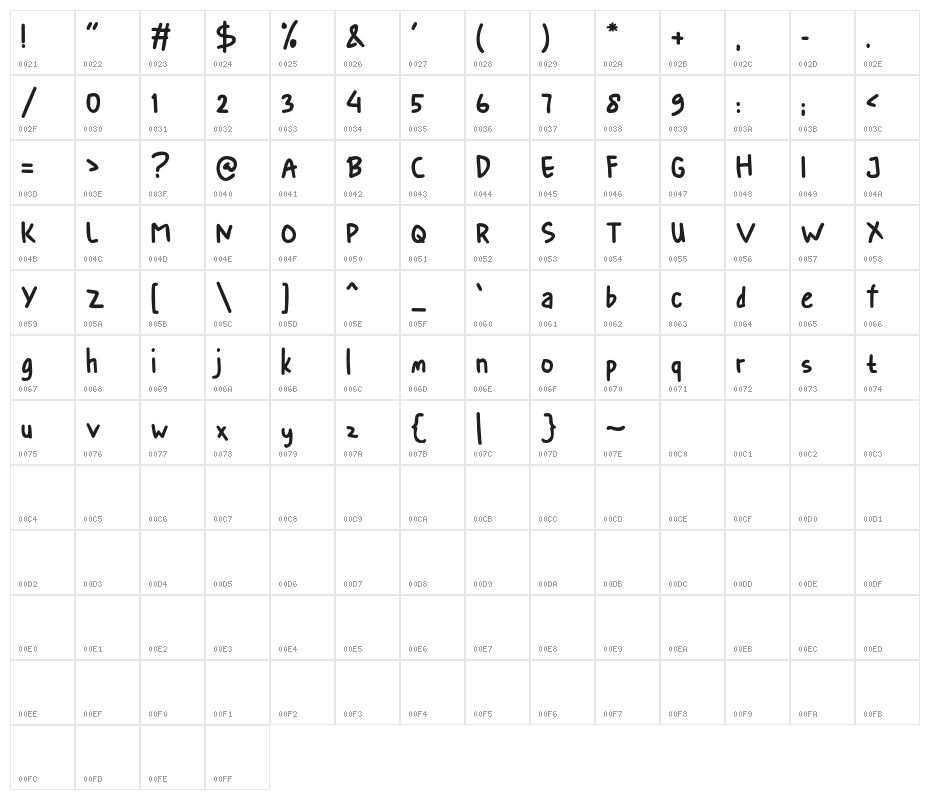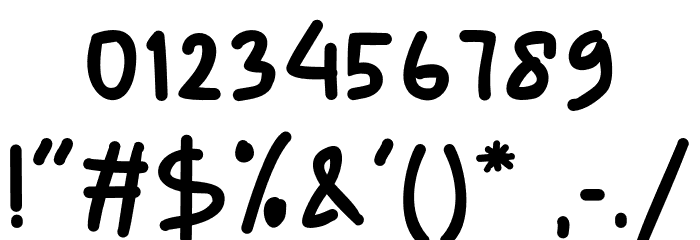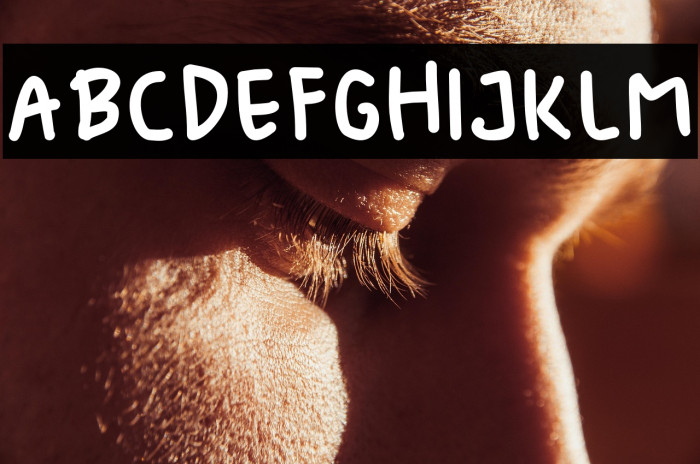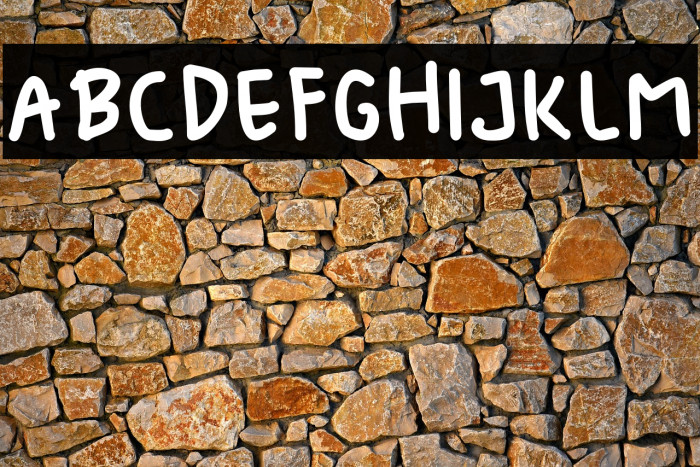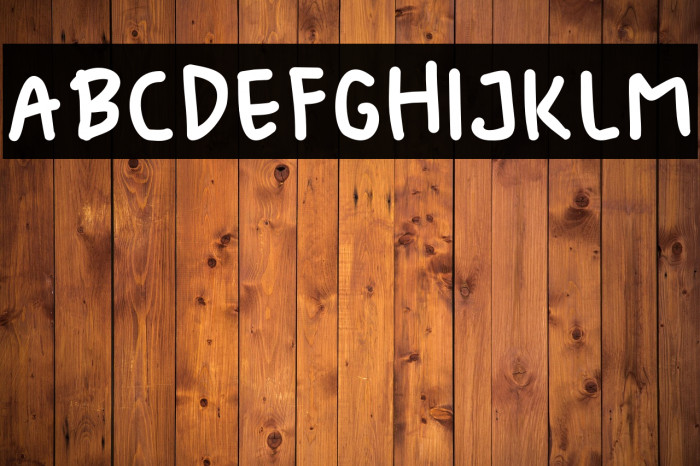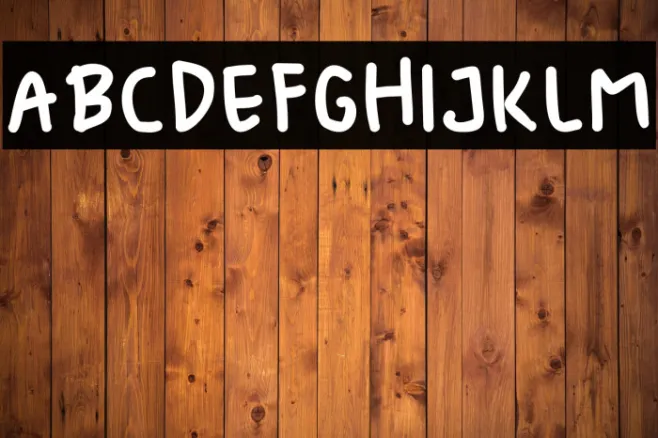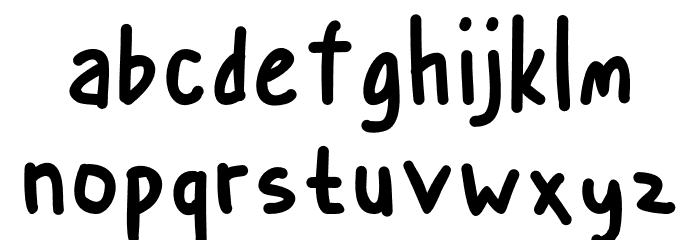
Sajeng-Regular Font
Sajeng-Regular Description
This font features a playful, handwritten style with a casual and friendly appearance. The letters are slightly irregular, giving it an organic and personal touch. The strokes are consistent in thickness, creating a uniform look across all characters. The uppercase and lowercase letters maintain a similar width, providing a balanced and cohesive feel. The numbers and special characters are designed to match the overall style, ensuring a harmonious appearance throughout. This font is versatile and can be used in various creative projects where a personal and approachable aesthetic is desired.
| Proposed Projects | Ideal for greeting cards, children's books, personal blogs, and informal branding. |